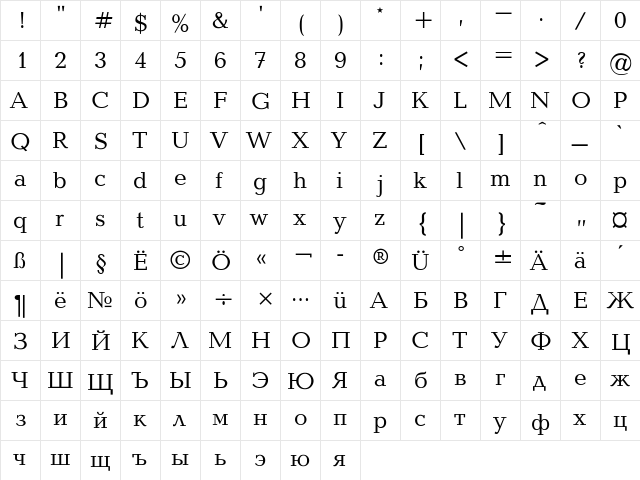
Baltica Regular
Design Context for Baltica Typeface
Baltica takes a measured approach to typography — its balanced proportions and neutral character make it a reliable workhorse for both digital and print work.